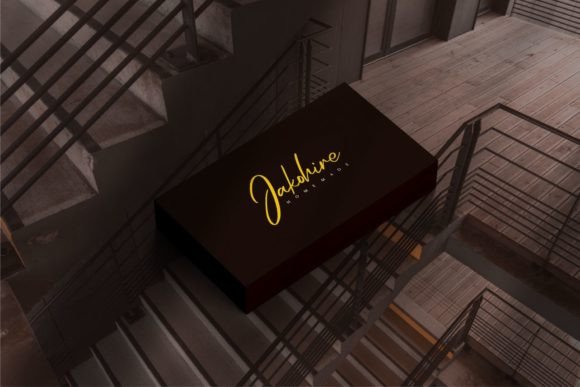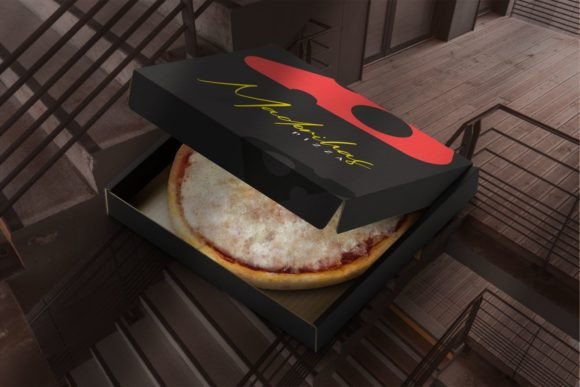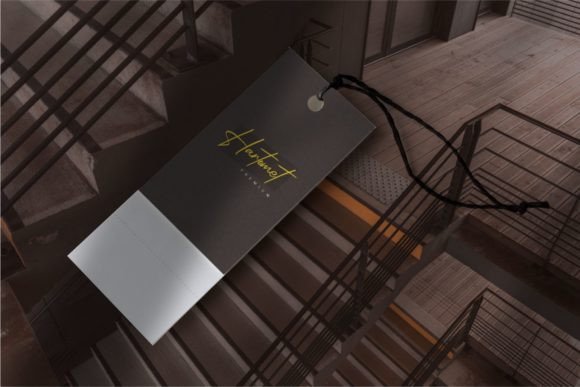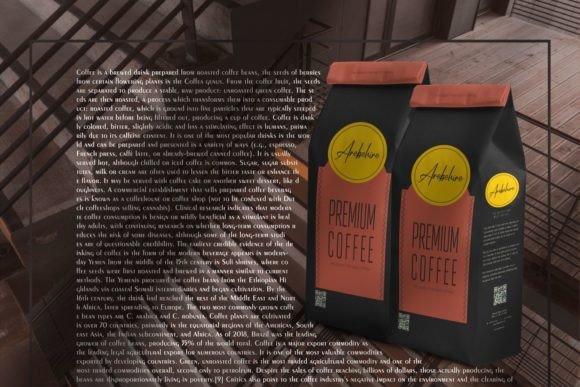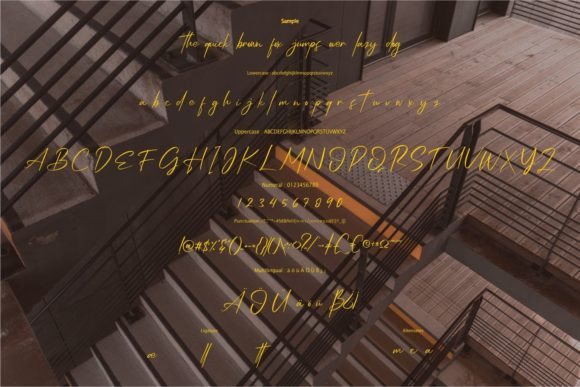
Billidas Font
About Billidas Font
Introducing Billidas, a romantic and sweet calligraphy typeface designed with characters that dance along the baseline. This typeface is crafted to add a luxurious spark to any design project you wish to create.
The calligraphic influences in Billidas contribute to its romantic and sweet aesthetic, making it an ideal choice for a variety of design applications. Whether you’re working on wedding invitations, romantic branding materials, elegant stationery, or any project that requires a touch of luxury, Billidas is designed to elevate your designs with its graceful and charming appearance.
Consider using Billidas to bring a romantic and luxurious feel to your wedding invitations, adding a touch of sweetness to your branding materials, or creating elegant stationery with a timeless charm. The typeface’s dancing characters along the baseline add a unique and dynamic quality, making your text visually engaging.
In essence, Billidas is more than just a font; it’s a design tool that infuses romance and luxury into your projects. Let it be the calligraphy typeface that adds a touch of elegance and charm, creating a captivating and luxurious spark in your design endeavors.